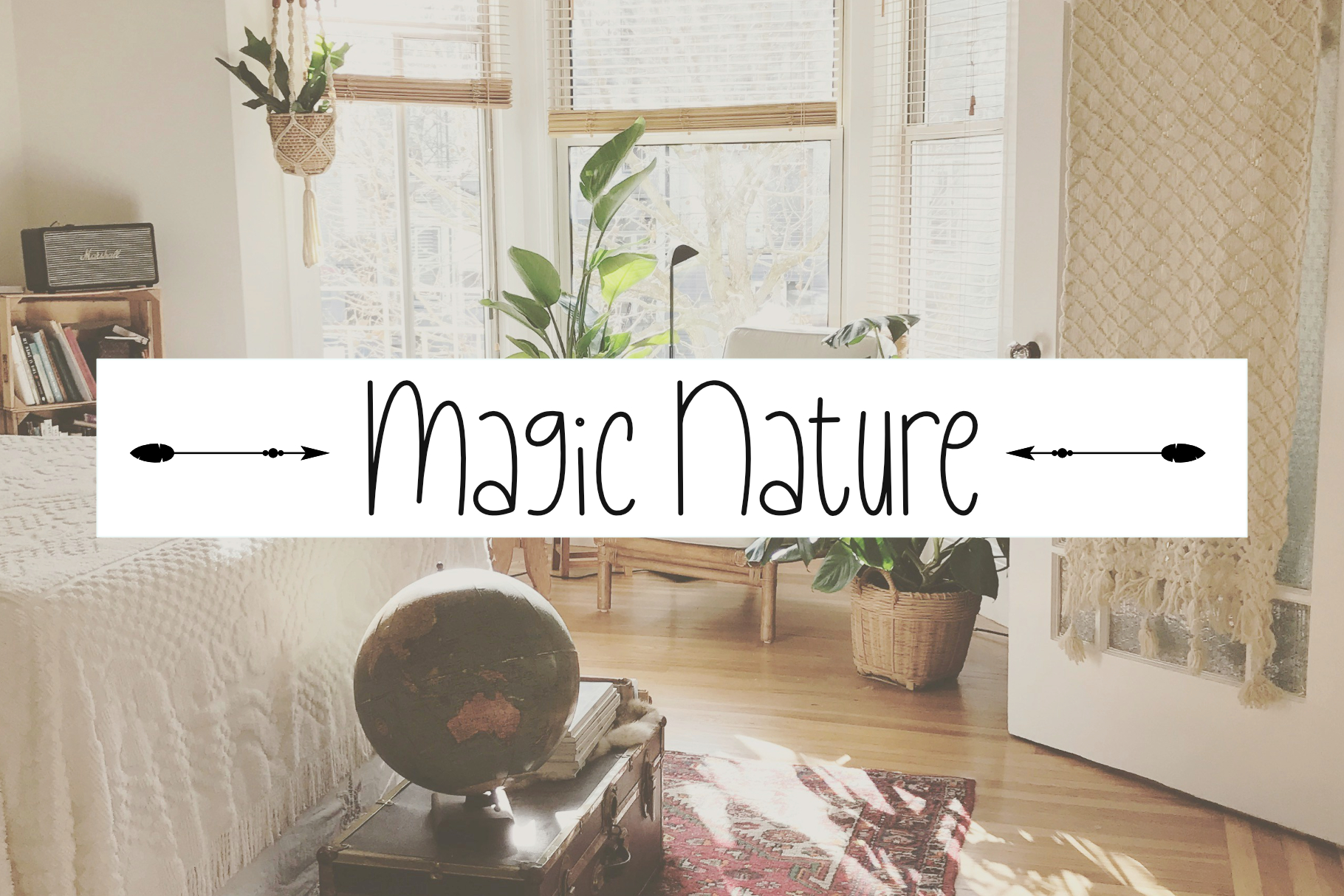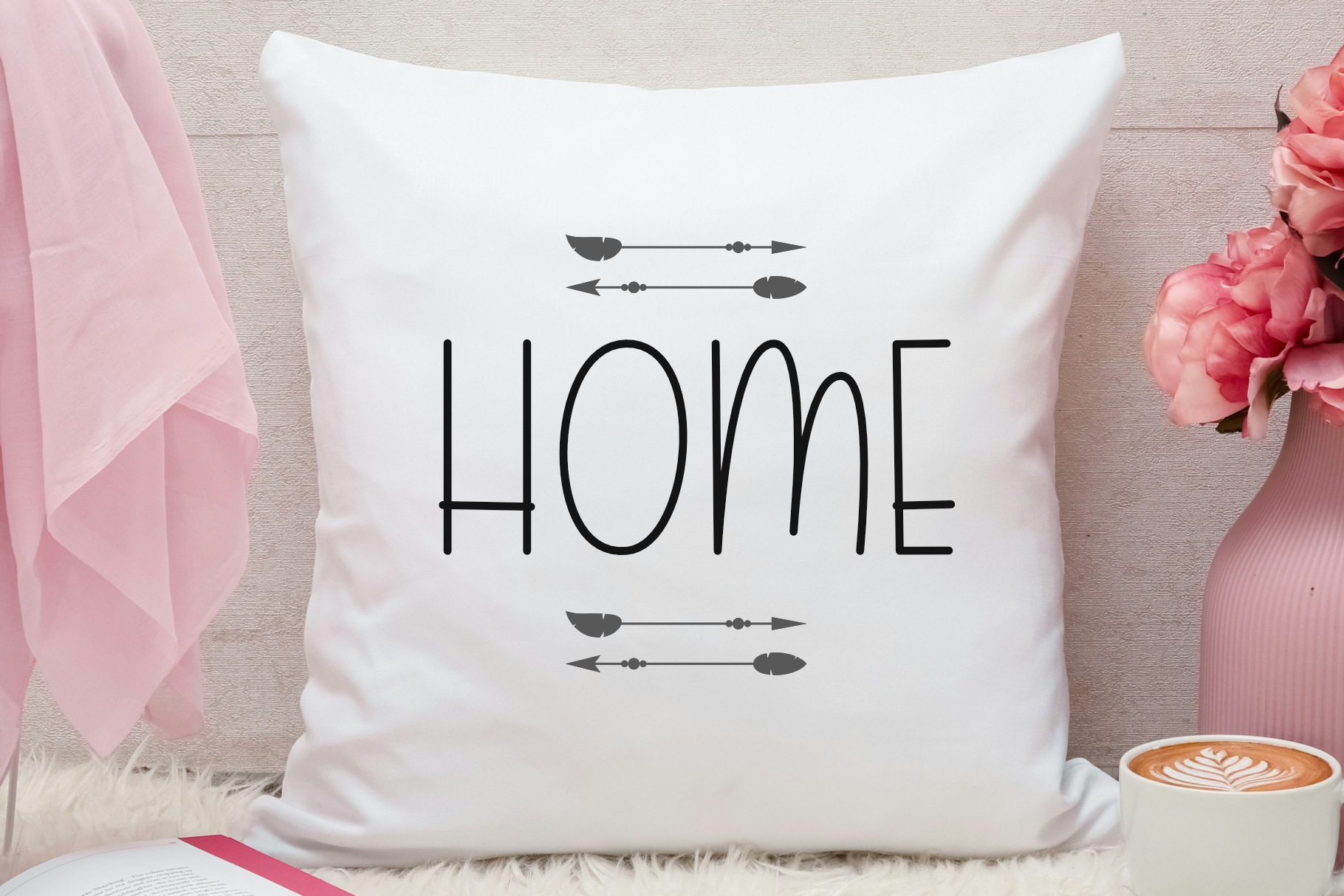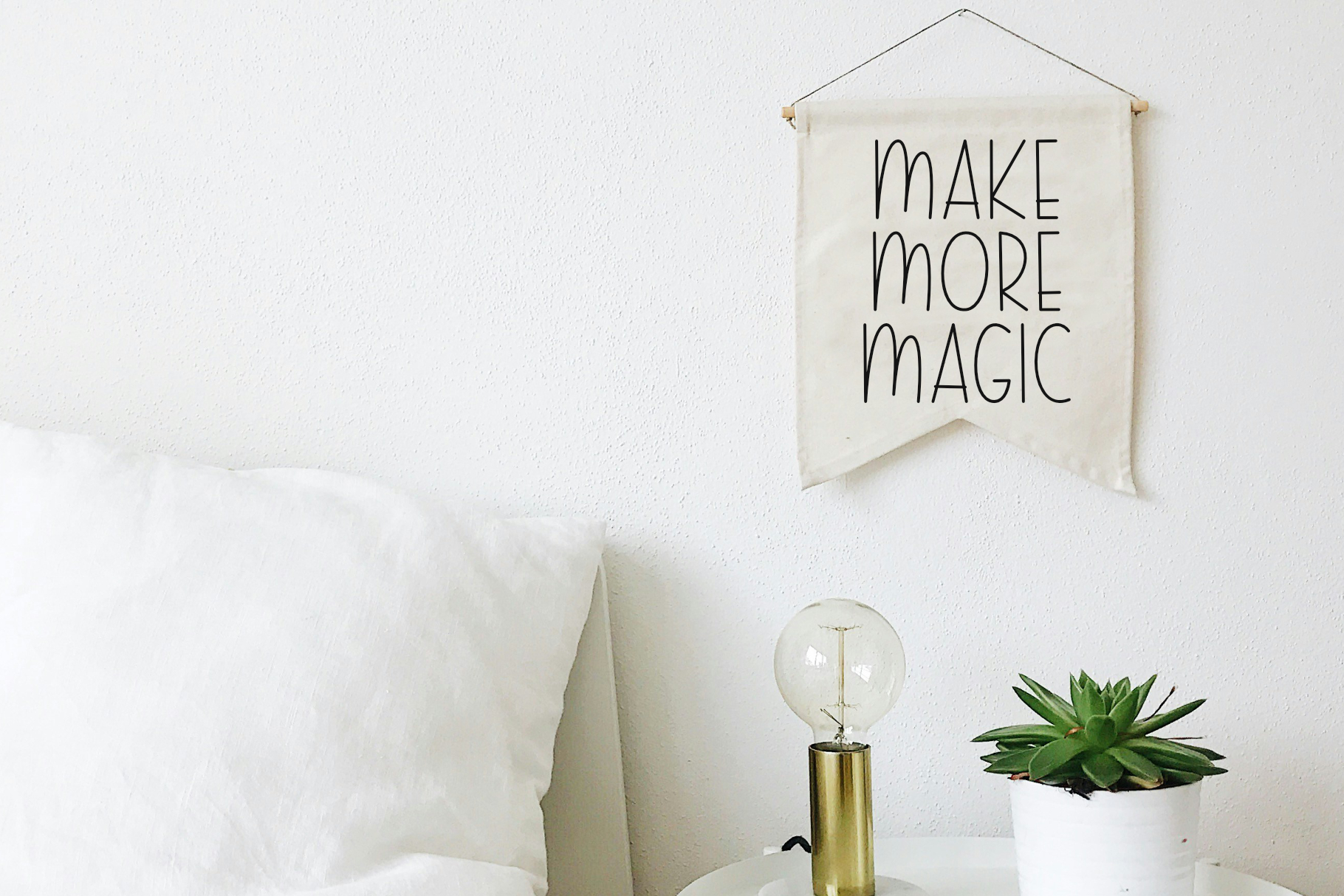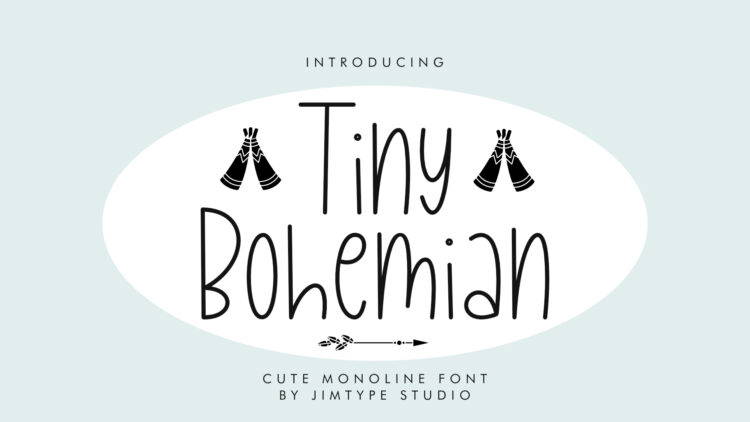
Tiny Bohemian Font
Meet Tiny Bohemian Font, the adorable font that brings a whimsical touch to your creative endeavors. Each letter exudes a delightful playfulness, making it ideal for projects that demand a touch of whimsy.
Tiny Bohemian Font is your go-to solution for projects that demand cuteness and versatility. Tailored for branding, Cricut projects, bloggers, and beyond. Whether you’re crafting a brand image, embarking on Cricut adventures, or adding charm to your blog, this font promises to make your designs irresistibly adorable.